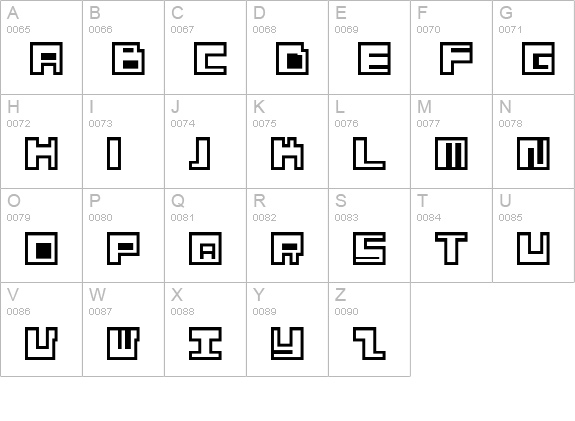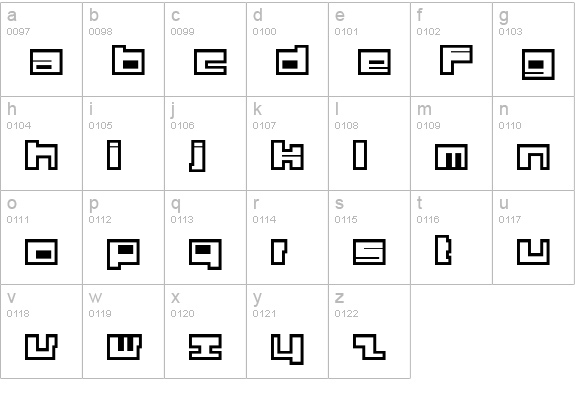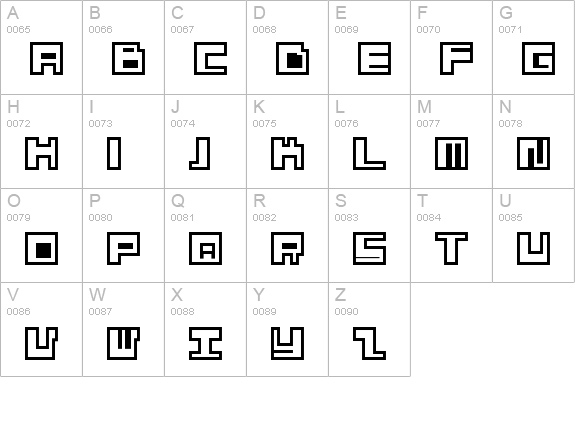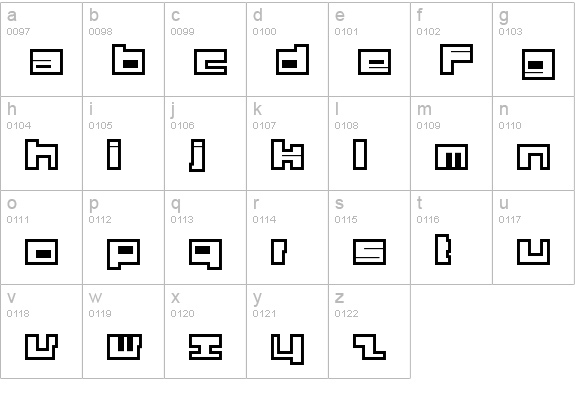
Limbex openVaria Font Details
Limbex openVaria font is a unique and stylish typeface that exudes a sense of modernity and sophistication. Its sleek and elegant design makes it perfect for a wide range of projects, from branding to editorial design. The clean lines and sharp edges of this font give it a contemporary feel that is sure to make your text stand out. What sets Limbex openVaria font apart is that it is completely free to download. You can easily access this high-quality font at FontsMarket.com, where you can add it to your library without any cost. This means you can elevate your design projects without breaking the bank. Don't miss out on the opportunity to enhance your creations with the striking beauty of Limbex openVaria font. Download it today and let your creativity soar!